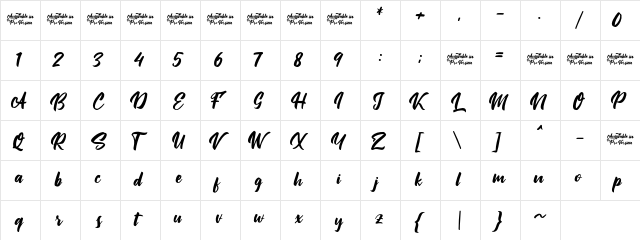
Jatayu Regular
| Foundry | Khurasan |
| Designer | Khurasan |
Design Context for Jatayu Typeface
Jatayu is a composed and adaptable typeface that performs quietly and consistently across a wide range of design contexts.